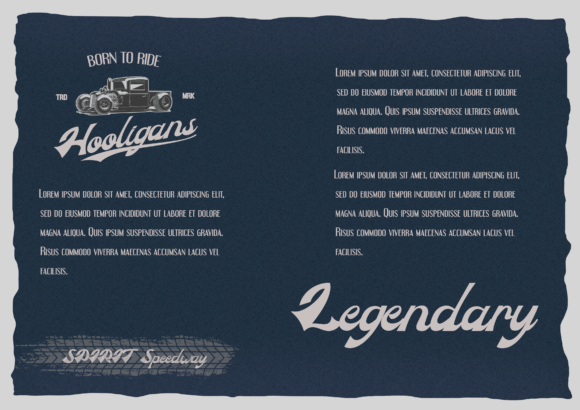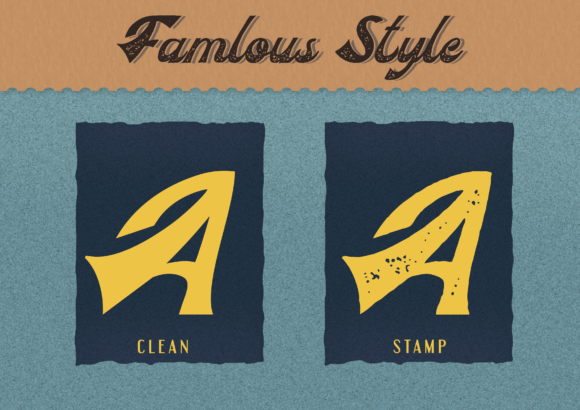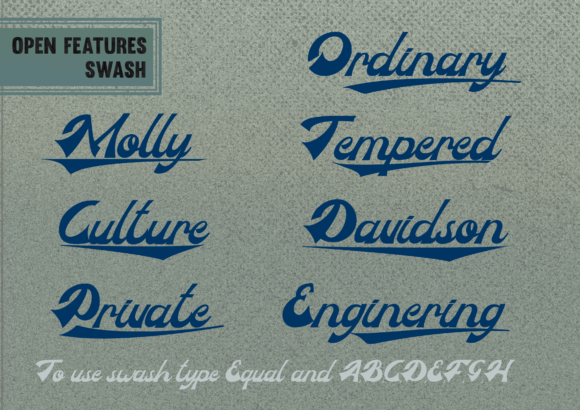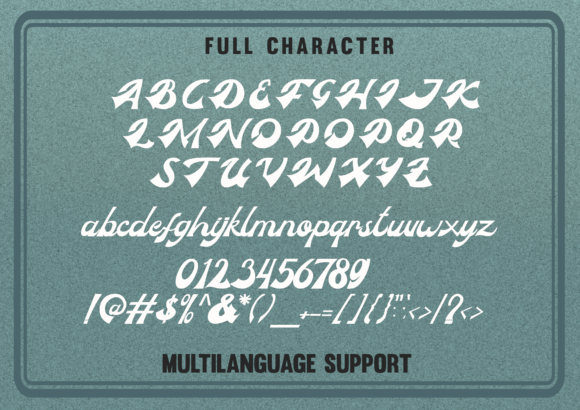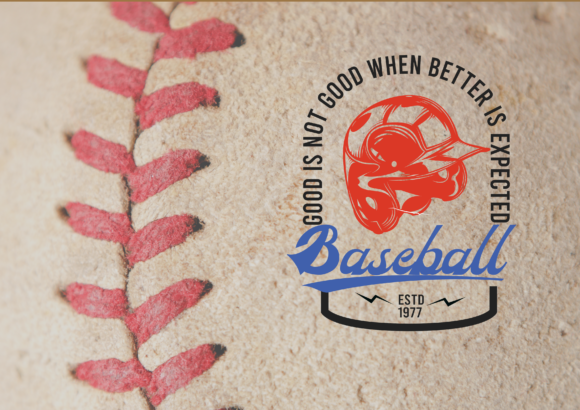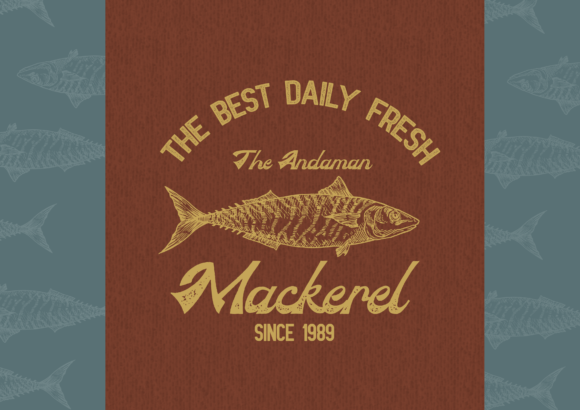
Introduction to Famlous Font Font
Fonts play a crucial role in design, and the Famlous Font font is a typeface that brings both character and versatility to any project. Whether you’re working on a branding project, a website, or a print design, the Famlous Font font offers a unique style that can elevate your work.
Famlous is a bold handwritten font with a unique style.
Fall in love with it and bring your projects to the highest levels .
Key Features of Famlous Font Font
Why Choose Famlous Font Font?
The Famlous Font font is more than just a typeface – it’s a design tool that helps you communicate your message with style and clarity. Its unique character set and versatile design make it suitable for a wide range of applications, from elegant invitations to bold headlines.
With its carefully crafted letterforms and balanced proportions, the Famlous Font font ensures readability and visual appeal across all mediums.
What makes Famlous Font font special?
The Famlous Font font stands out with its unique design, exceptional readability, and versatility across various design applications.